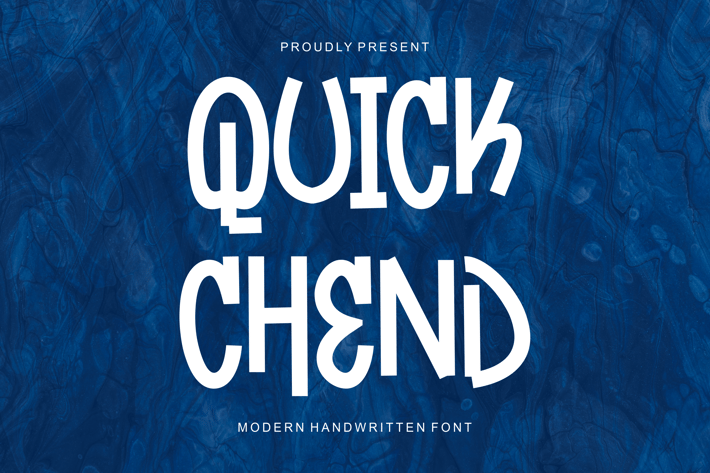
Quick Chend - Chalk & Marker Font
Presenting Quick Chend - Font is suitable for badge, labels, logo, branding, magazine, poster and etc. Our fonts have Uppercase & Lowercase, Numeral & Punctuation, Multilingual support and Opentype Features. For Amazing designs you can mix with other fonts as a complement.